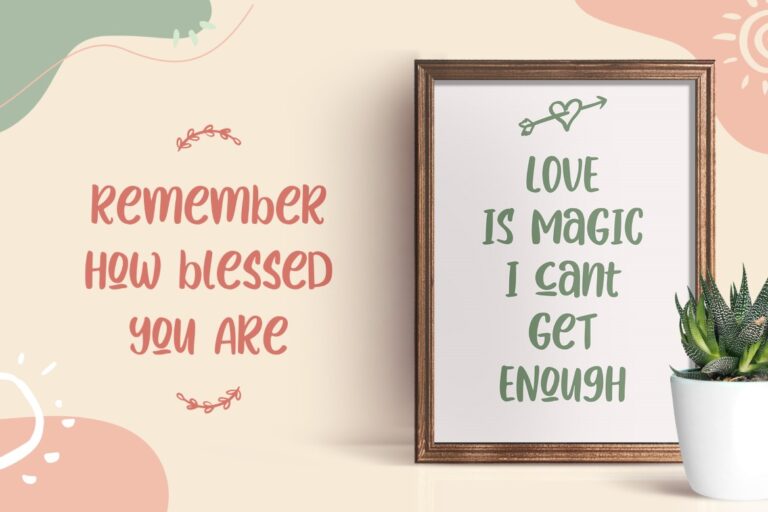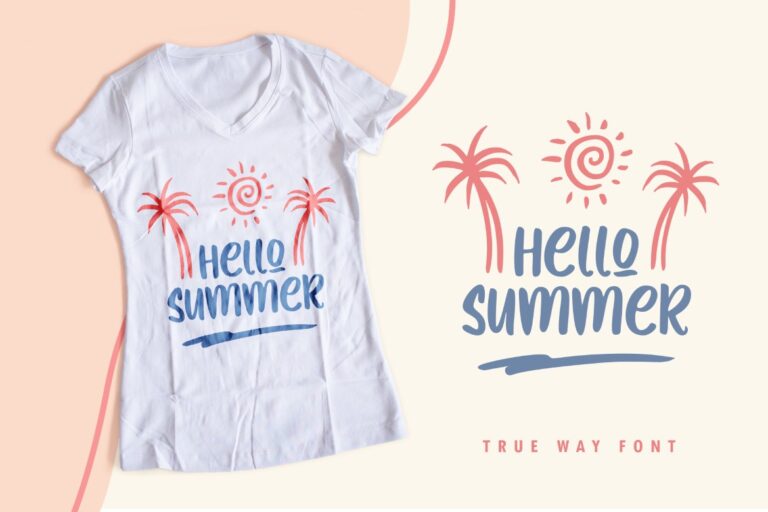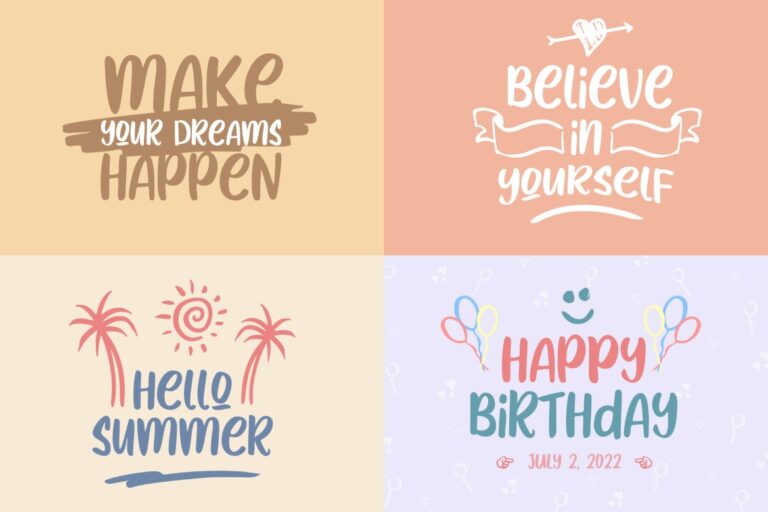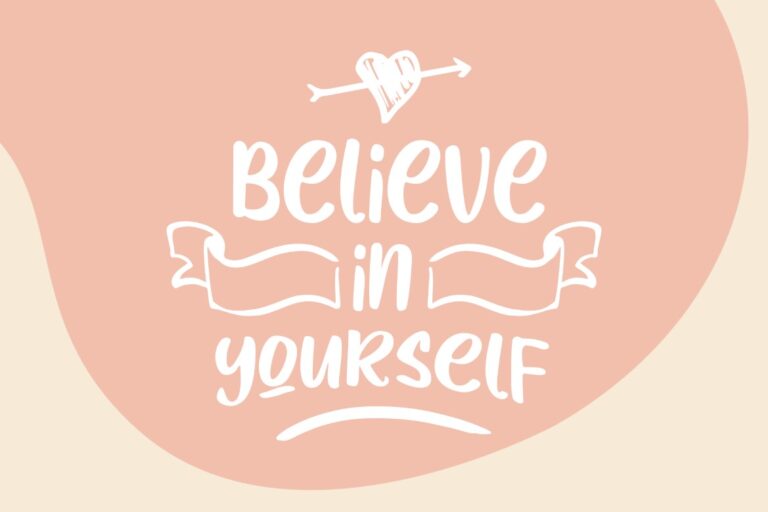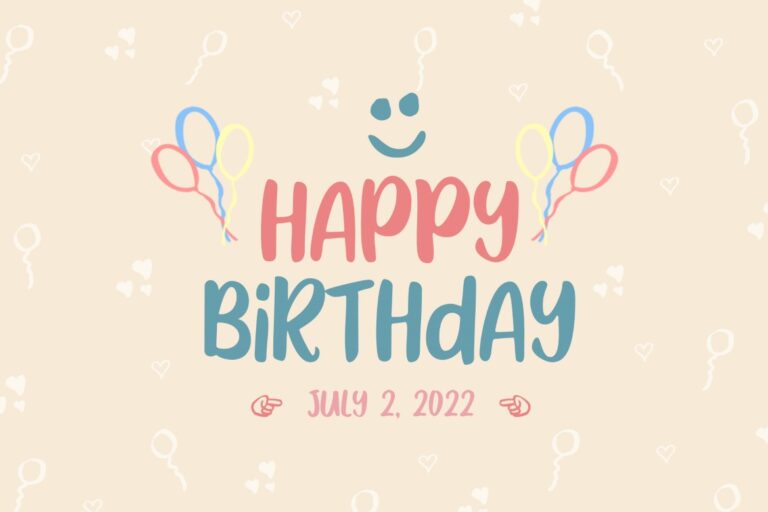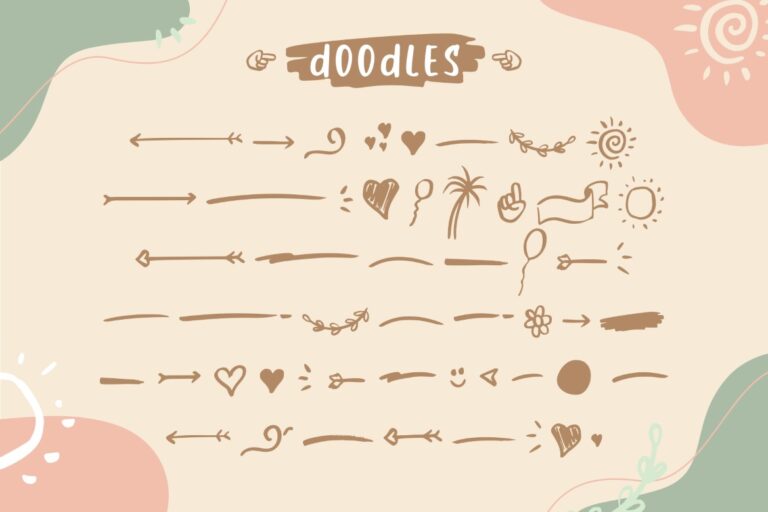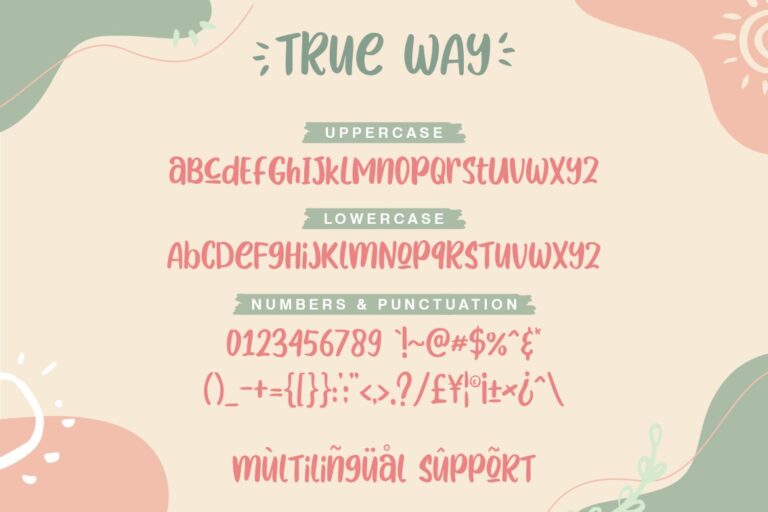
True Way
True Way and Doodles is a sweet and friendly handwritten font. Its natural and unique style makes it incredibly fitting to a large pool of designs. The only limit is your imagination!